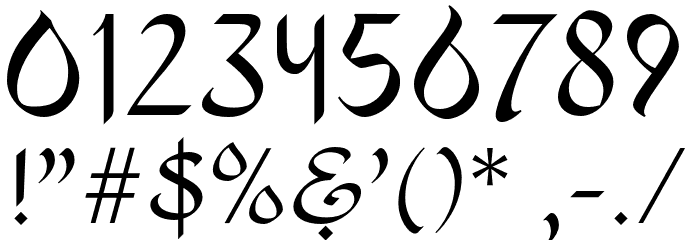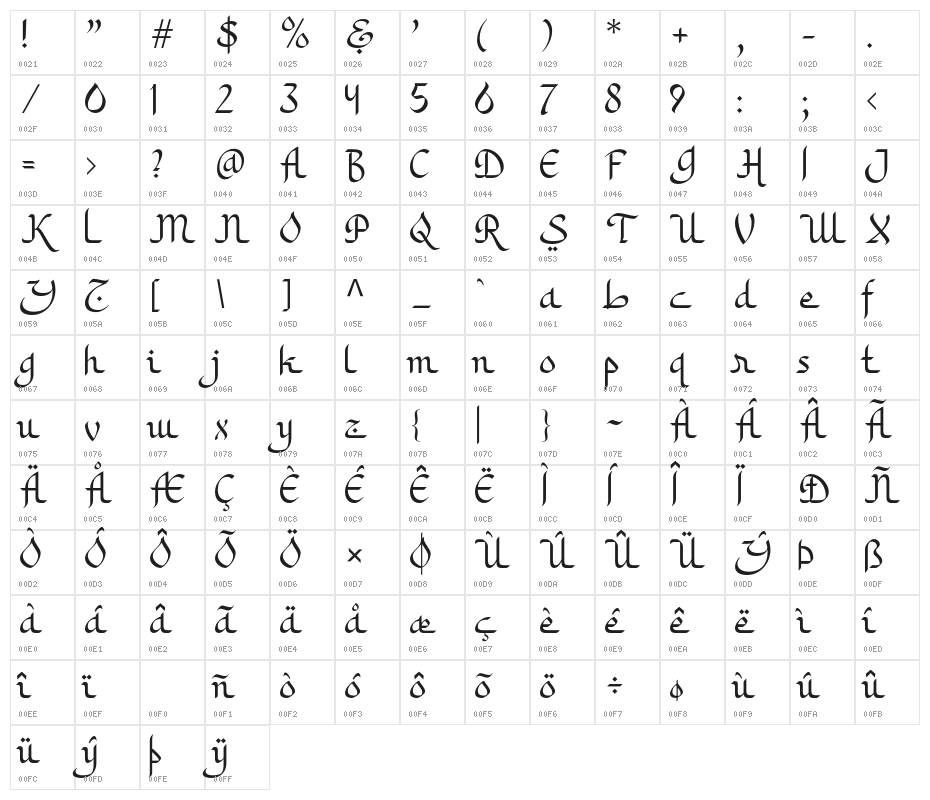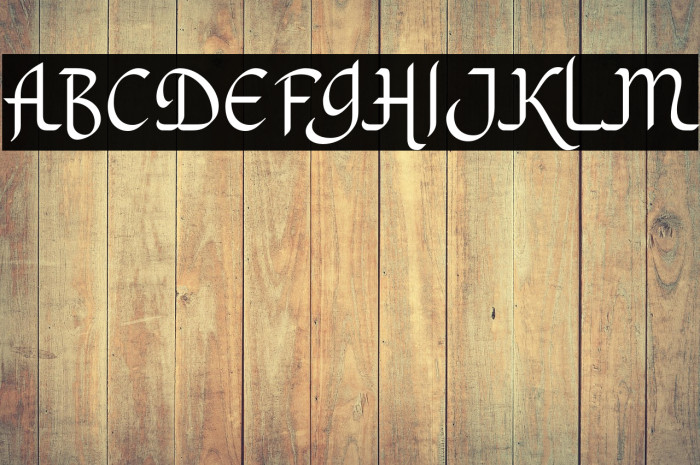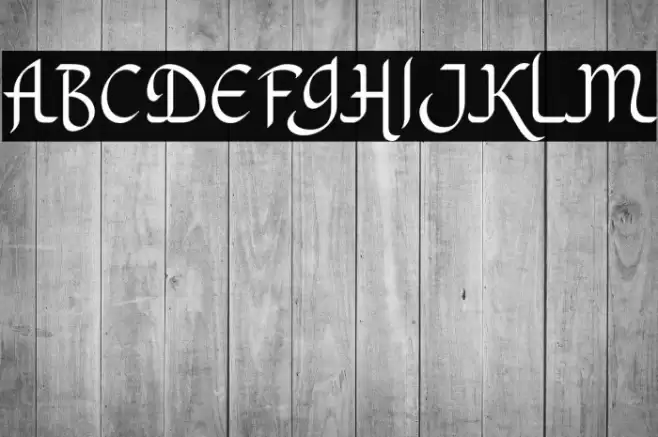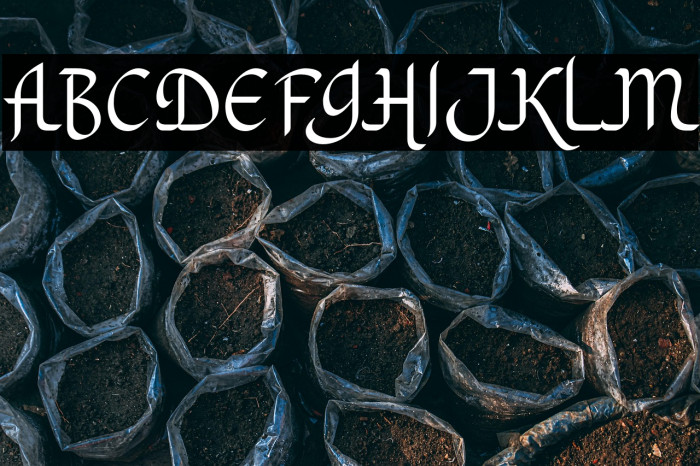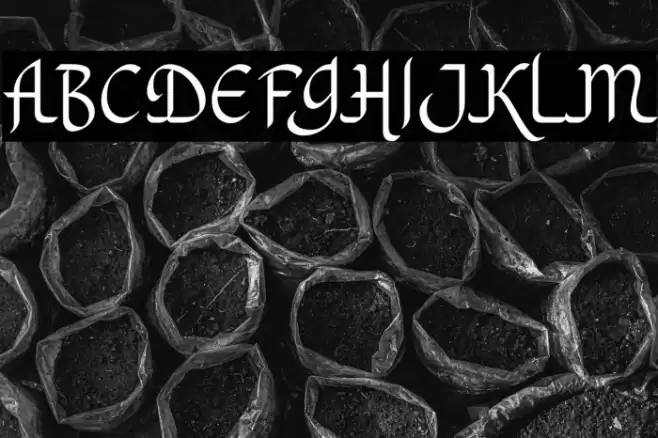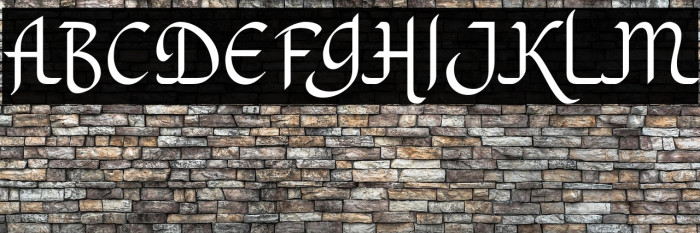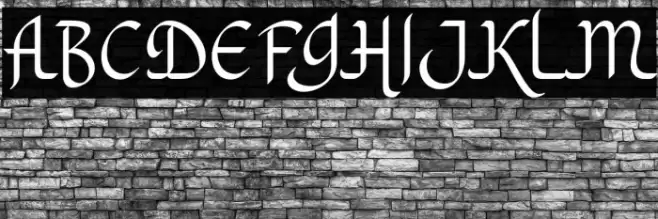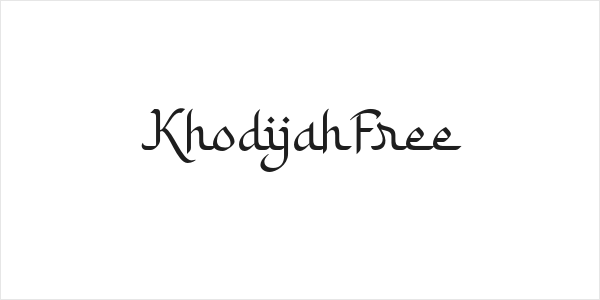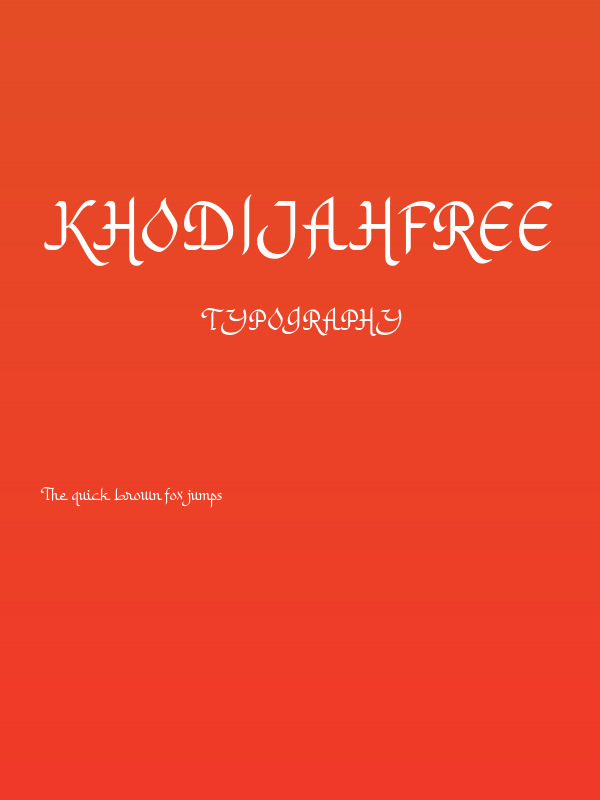
KhodijahFree Font
KhodijahFree Description
This font exhibits a unique blend of elegance and flair, characterized by its flowing, cursive-like strokes that give it a handwritten appearance. The uppercase letters feature distinct flourishes and curves, creating a sense of movement and sophistication. The lowercase letters maintain a consistent style, with smooth transitions and a slightly slanted orientation. Numbers and special characters are designed with the same attention to detail, ensuring a cohesive look across all elements. The font's overall aesthetic is reminiscent of calligraphy, making it suitable for projects that require a touch of elegance and creativity.
| Proposed Projects | Ideal for wedding invitations, greeting cards, branding, and logo design where a touch of elegance is desired. |